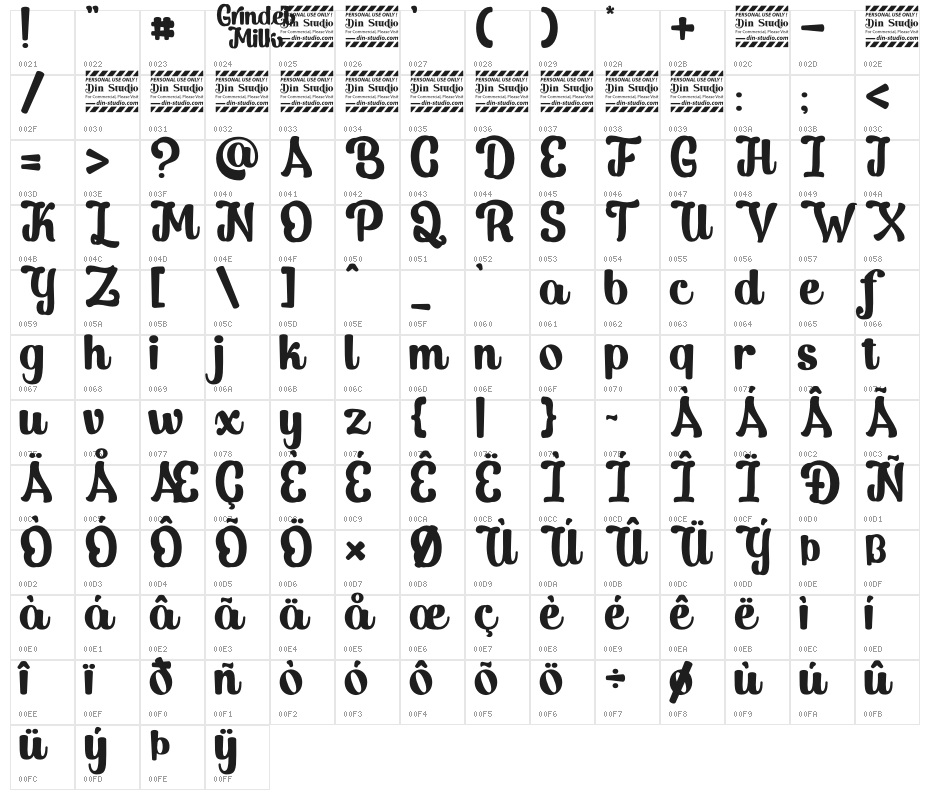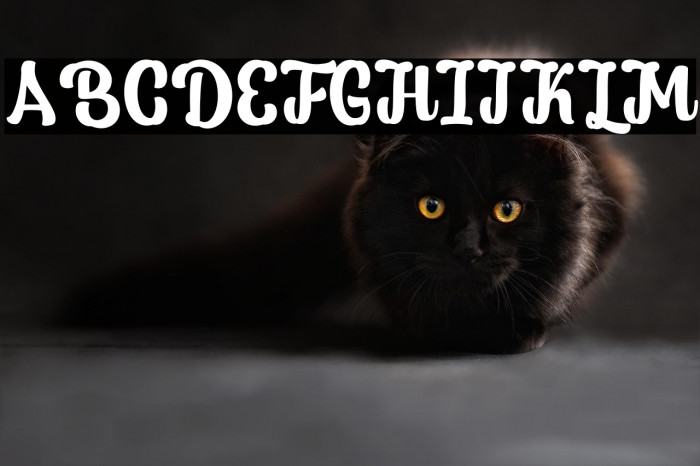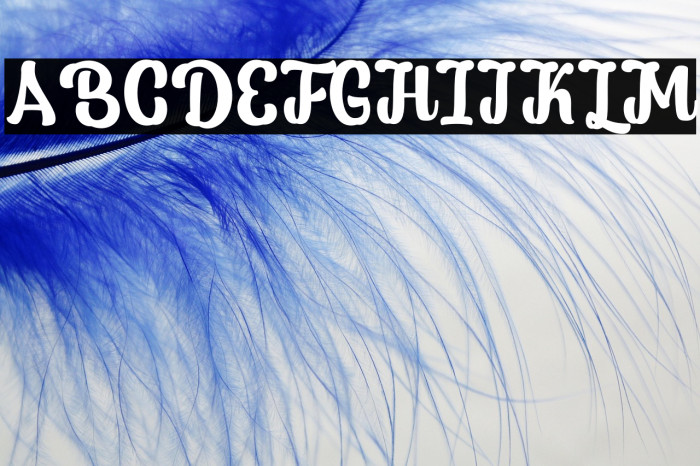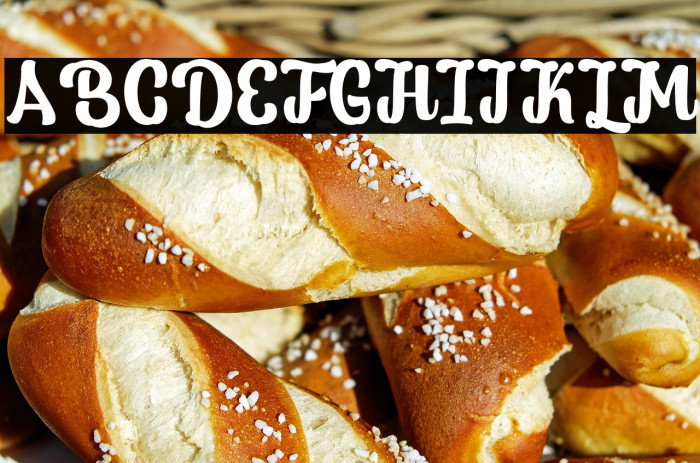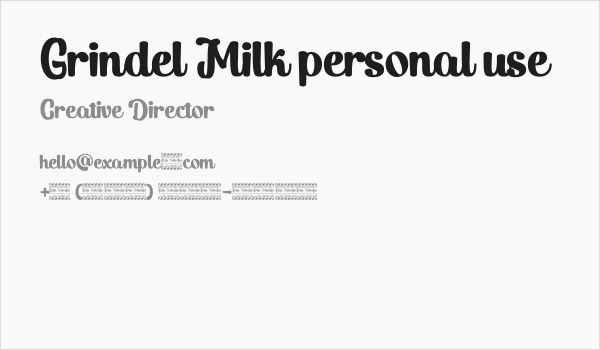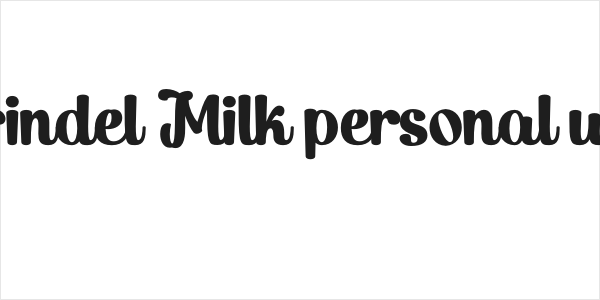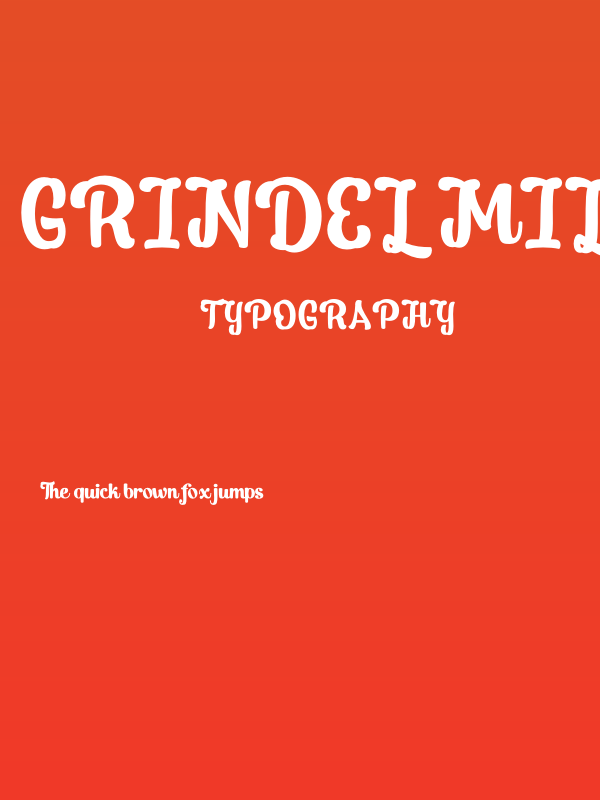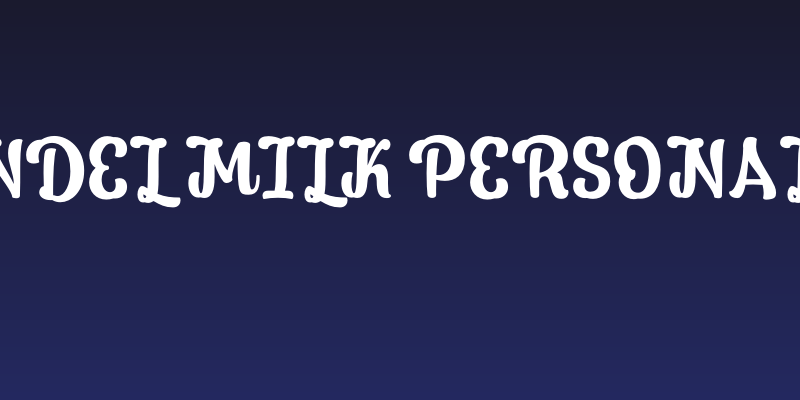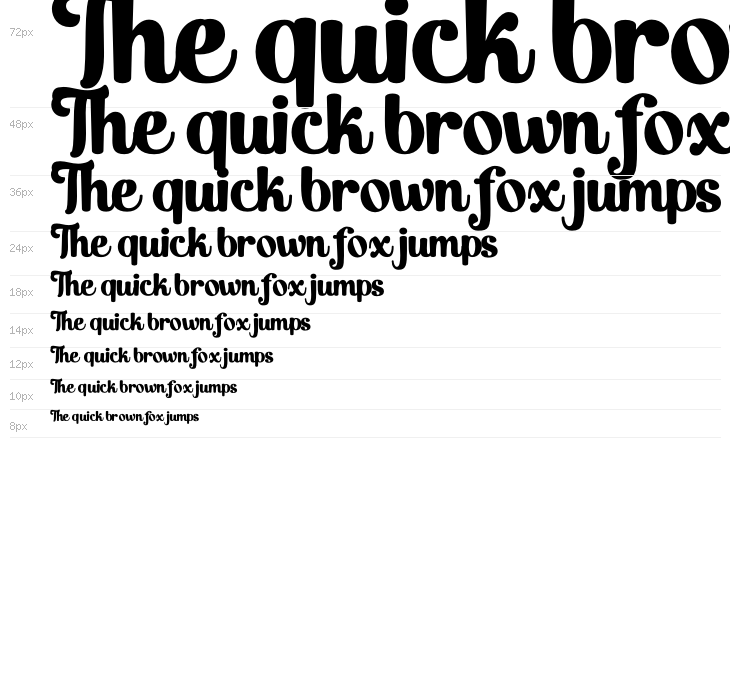
Grindel Milk personal use Font
Grindel Milk personal use Description
This font features a bold and playful style with a distinctive, rounded appearance. The uppercase letters are characterized by their thick strokes and slight curves, giving them a friendly and approachable look. The lowercase letters maintain the same boldness, with smooth transitions and rounded edges that enhance readability. The numbers and special characters follow the same design principles, ensuring consistency throughout. This font's unique style makes it stand out, perfect for projects that require a touch of fun and creativity.
| Overall Style | Playful, Fun |
| Proposed Projects | Ideal for children's books, playful branding, posters, and social media graphics. |